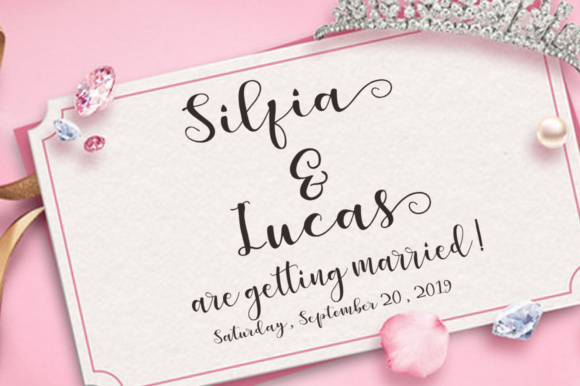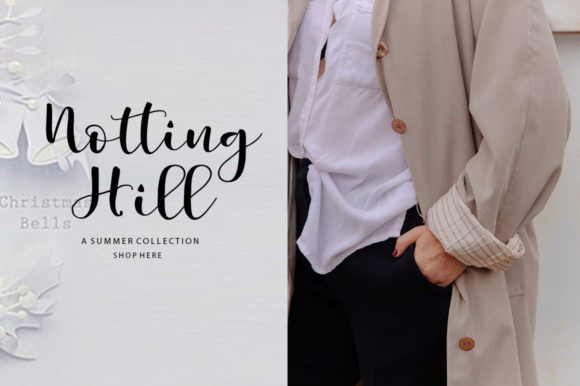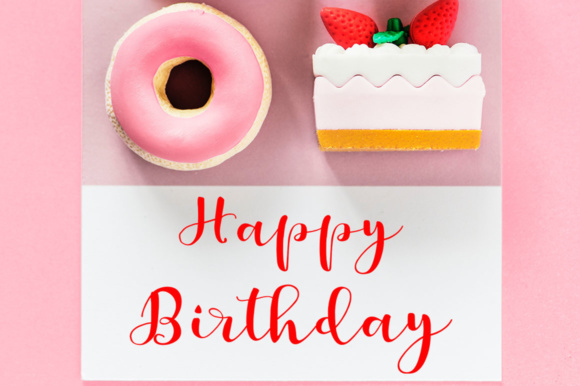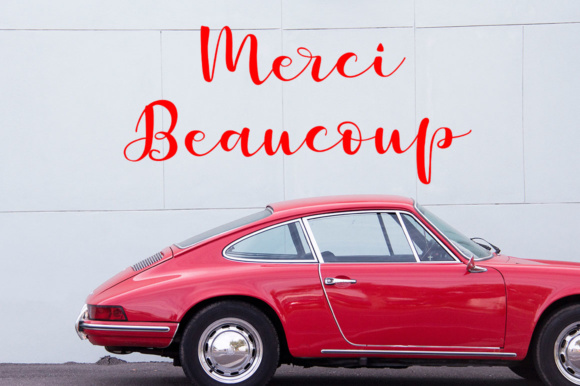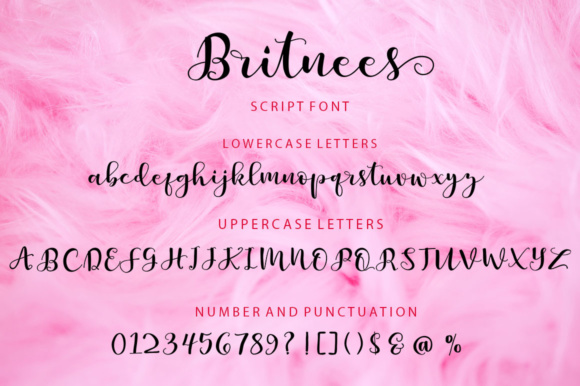
Discover the Charm of Britnees Script Font
As I sat at my desk, surrounded by scraps of paper, paint swatches, and half-finished projects, I couldn’t help but feel the urge to create something truly special. It’s moments like these that remind me why I love being a designer – the freedom to experiment, to take risks, and to bring my imagination to life.
One of my favorite discoveries during this creative session was the Britnees Script Font, a modern script font with an irregular baseline and a trendy, feminine style. Perfect for adding a touch of whimsy to your designs, Britnees Script Font is ideal for wedding invitations, thank you cards, quotes, and more. Whether you’re working with ink or watercolor, this font is sure to add a personal touch to your projects.
For designers, the Britnees Script Font is a valuable addition to any toolkit. Its unique style and versatility make it a great choice for logos, business cards, and other branding materials. With its feminine charm and modern edge, Britnees Script Font is sure to elevate your designs and leave a lasting impression on your audience.
Britnees Script Font Key Features
- Font Family: Britnees Script Font is a script font, ideal for creative and artistic purposes.
- Unique Characteristics: This script font features elegant, cursive lines and flowing connections, making it perfect for wedding invitations, greeting cards, and other creative projects.
Britnees Script Font Review
At first glance, Britnees Script Font ✨ has a certain charm to it. The flowing, handwritten style is perfect for adding a touch of elegance to any design project. The font is highly legible, even at smaller sizes, making it ideal for use in body text or as a title font.
The font’s versatility ✨ is another major plus. It works well in a variety of contexts, from wedding invitations to blog headers. The script style also lends itself well to creative typography, making it easy to add visual interest to your designs.
- ⚠️ The font can be a bit too ornate for some designs, potentially overwhelming the content.
- ⚠️ The font may not be suitable for use in small sizes or in situations where readability is a top priority.
Overall, Britnees Script Font is a solid choice for designers looking to add a touch of sophistication to their projects. While it may have some limitations, the font’s charm and versatility make it a worthwhile addition to any design toolbox.
Tip: Use Britnees Script Font for titles and headings to add a touch of elegance to your design.
Tip: Use Britnees Script Font for quotes or captions to add a personal touch to your design.
Tip: Use Britnees Script Font for titles or headings to add a touch of sophistication to your document.
Britnees Script Font is ideal for:
- Photography captions and quotes
- Stationery and greeting cards